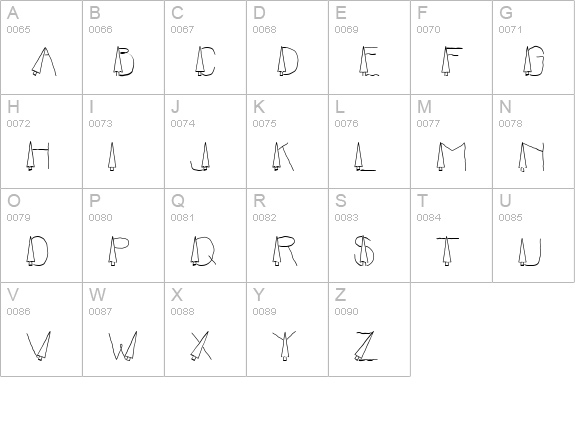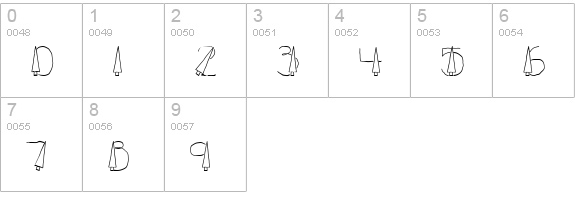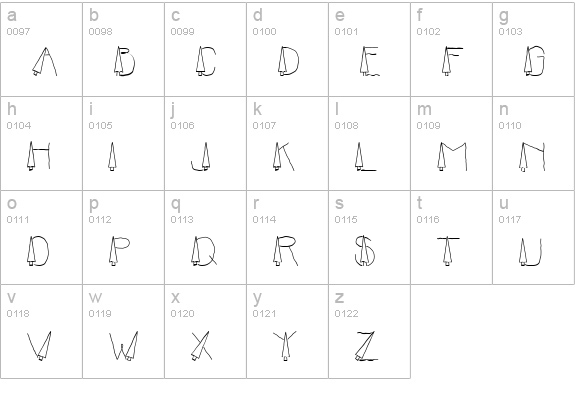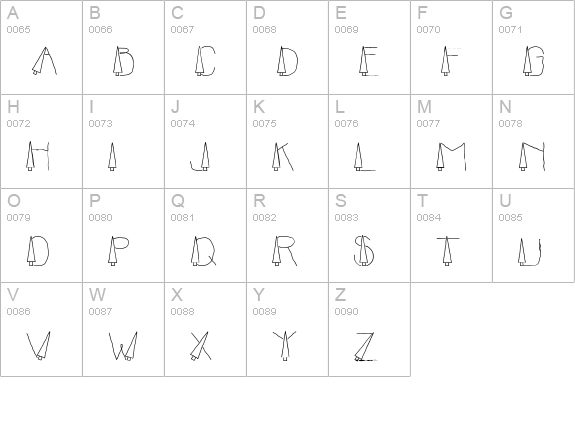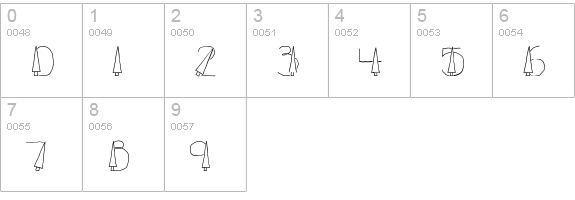
CK Tall Trees 1 Font Details
CK Tall Trees 1 is a beautifully crafted font that exudes elegance and sophistication. Its slender and elongated letterforms give off a sense of grace and refinement, making it perfect for projects that require a touch of class. This font is versatile and can be used for a wide range of design purposes, from elegant invitations to stylish logos. What makes CK Tall Trees 1 even more appealing is that it is available for free download at FontsMarket.com. This means that you can easily access this stunning font without any cost, making it a great choice for designers on a budget. With its timeless appeal and effortless charm, CK Tall Trees 1 is sure to elevate your design projects to new heights.